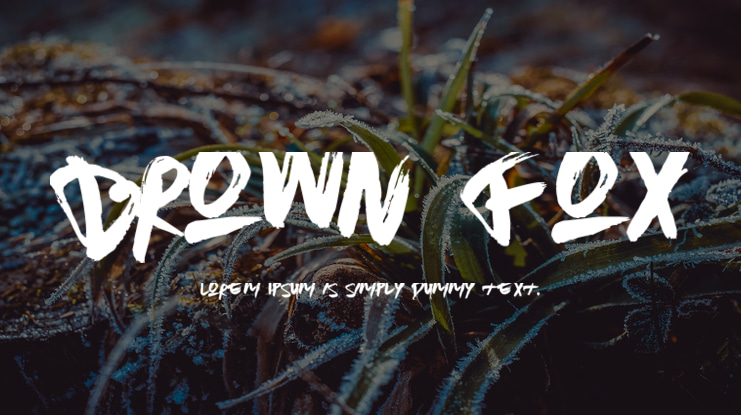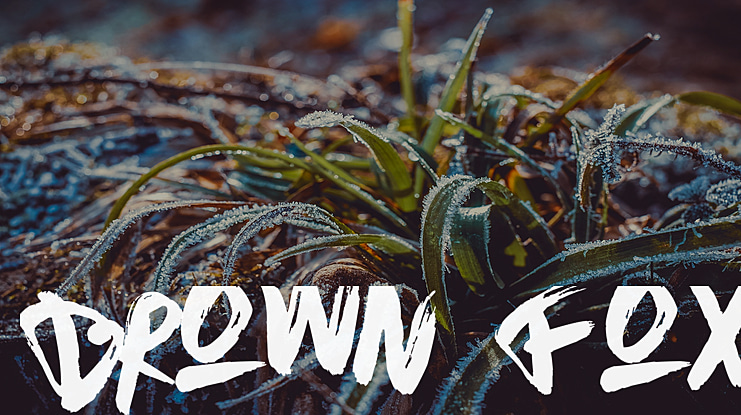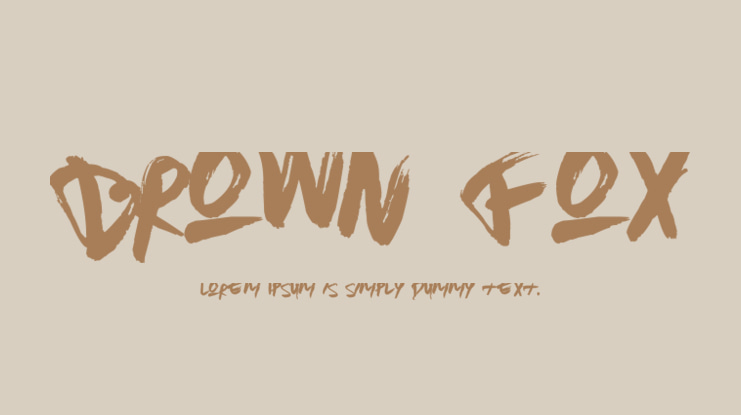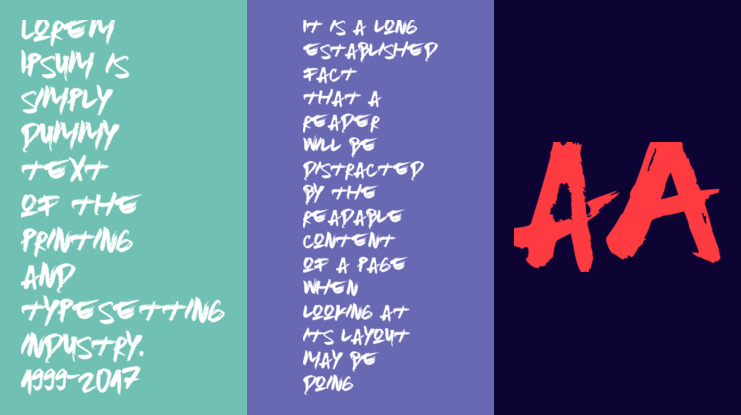
Brown Fox Font
This is handmade Font, Calligraphy style, Suitable for design, element design, wedding, event, t-shirt, logo, badges, sticker, and awesome work about summer.